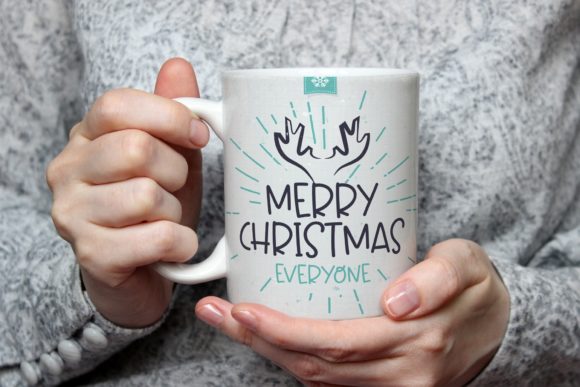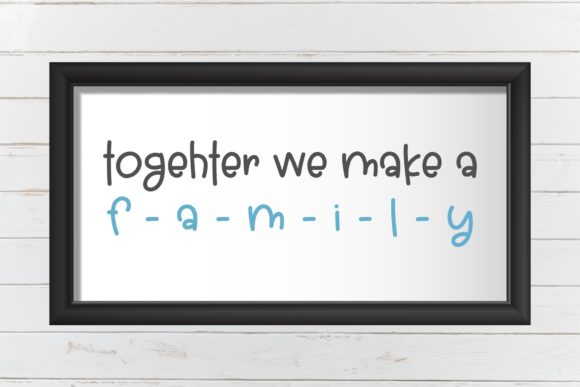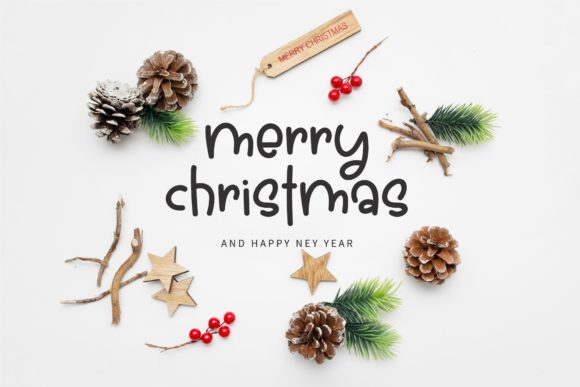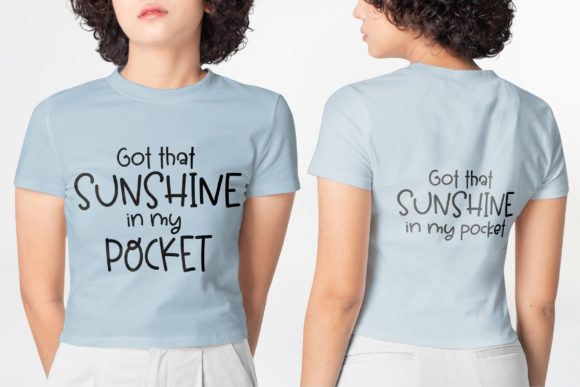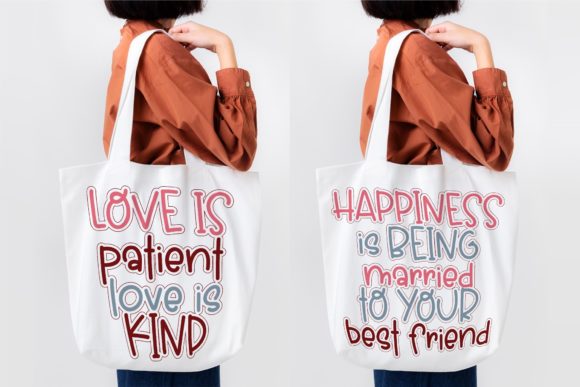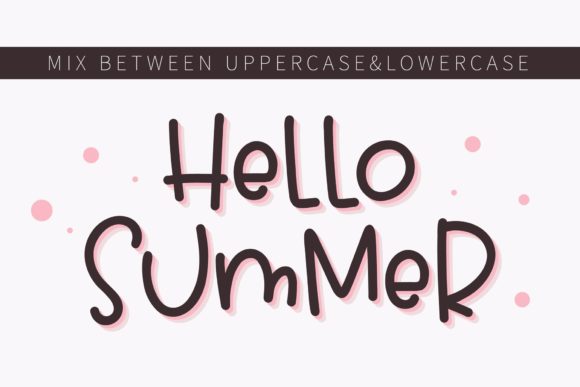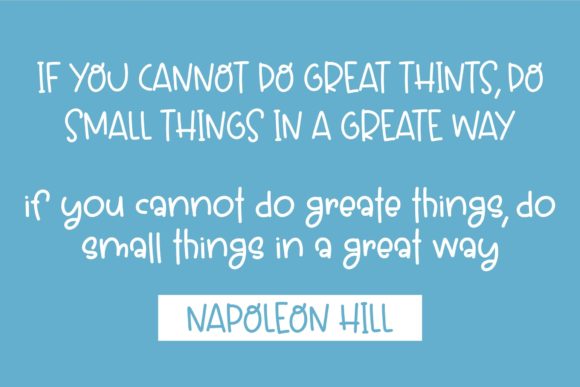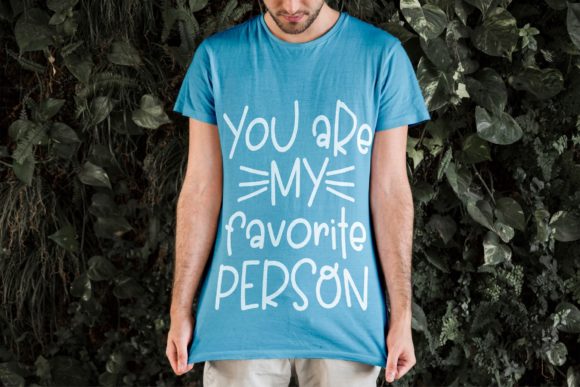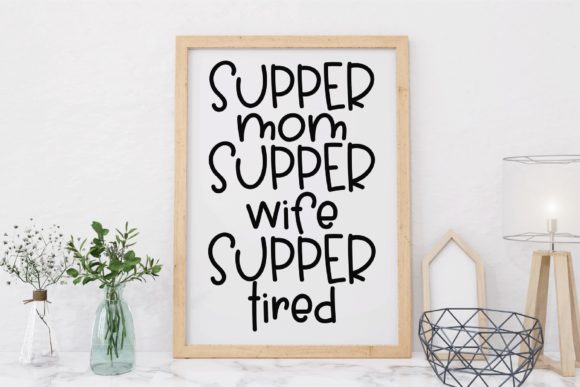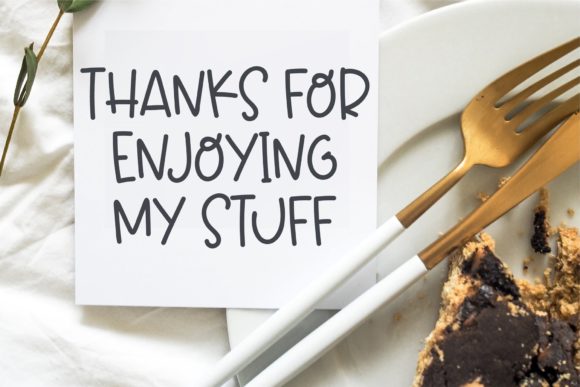
Sketchy Font
About Sketchy Font
Sketchy is a cool, friendly, and informal handwritten font, that can be used for all chalkboard quotes or teaching material! Its authentic look will add a personal and realistic feel to your designs.